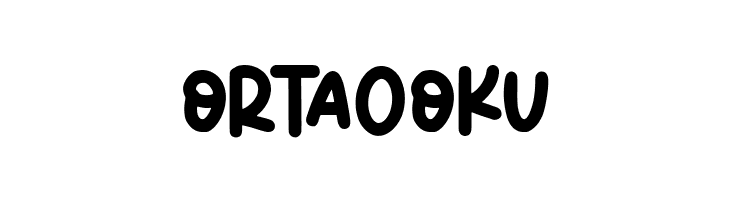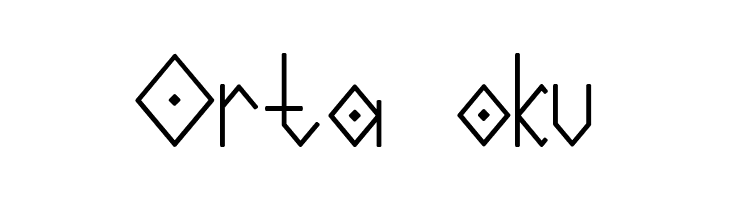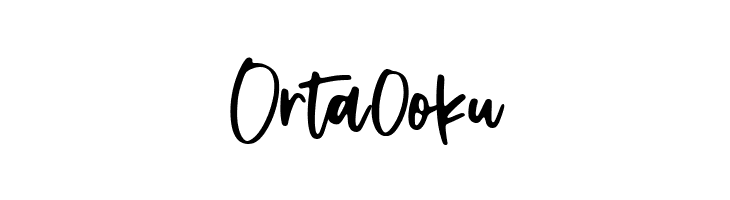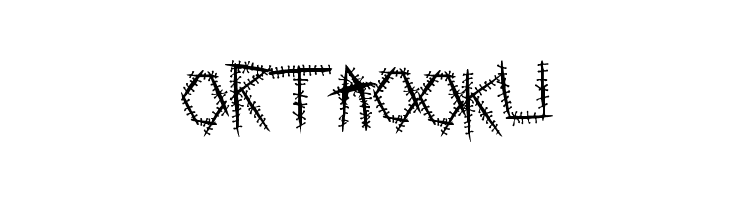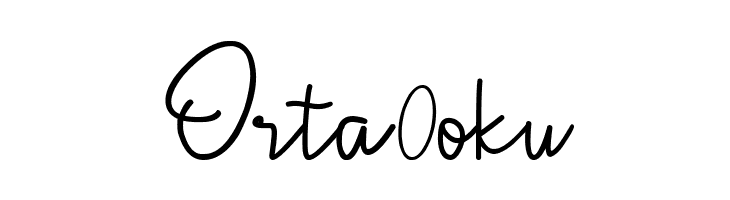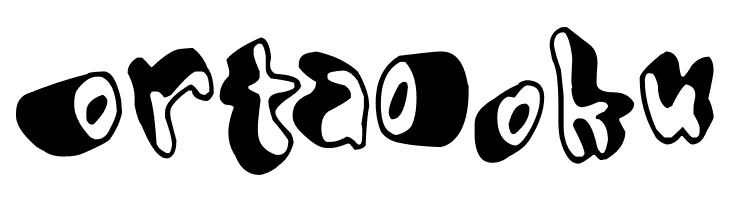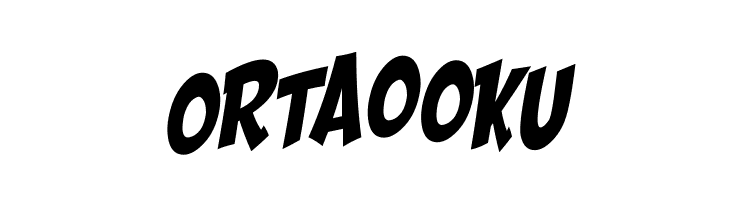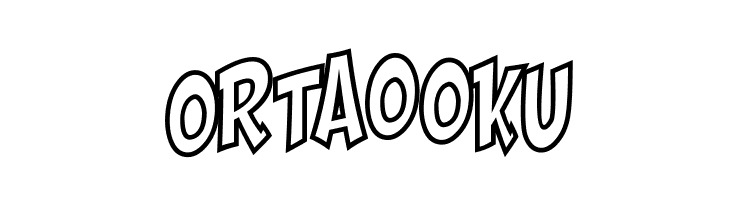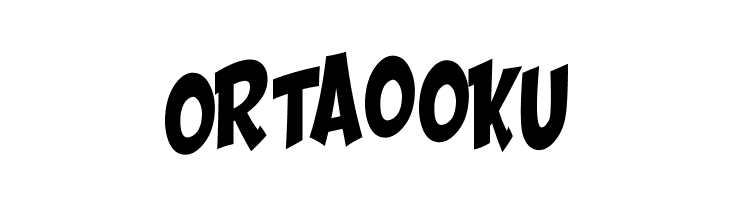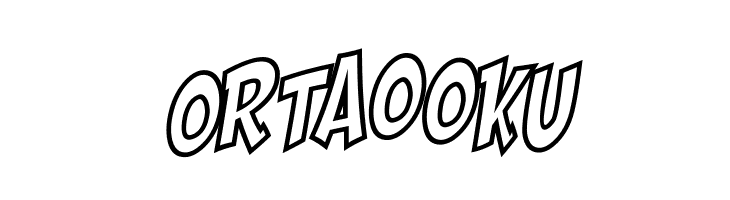
A playful, casual handwritten font with fluid strokes and a friendly appearance.
A rugged, stitched-style font with a handcrafted, edgy appearance.
A playful, bold font with rounded strokes and a friendly appearance.
A playful, bold font with a shadow effect and hand-drawn style.
A lively and dynamic handwritten font with playful, fluid strokes.
A bold, dynamic font with a playful, energetic style.
A bold, outlined font with a dynamic, comic-like style.
A bold, dynamic font with angular, energetic letterforms ideal for playful designs.
A bold, playful font with a hollow interior and dynamic style.
A geometric, rune-like font with angular lines and diamond accents.